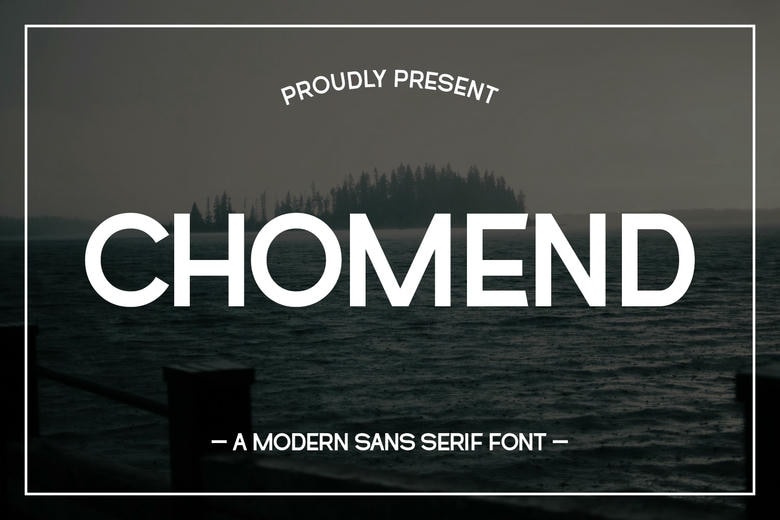
Chomend Font
Chomend is a modern sans-serif font with a clean and simple style. Its smooth lines and balanced shapes make it easy to read, perfect for a fresh, minimalist look in logos, headlines, and designs.
Chomend Sans Serif Font